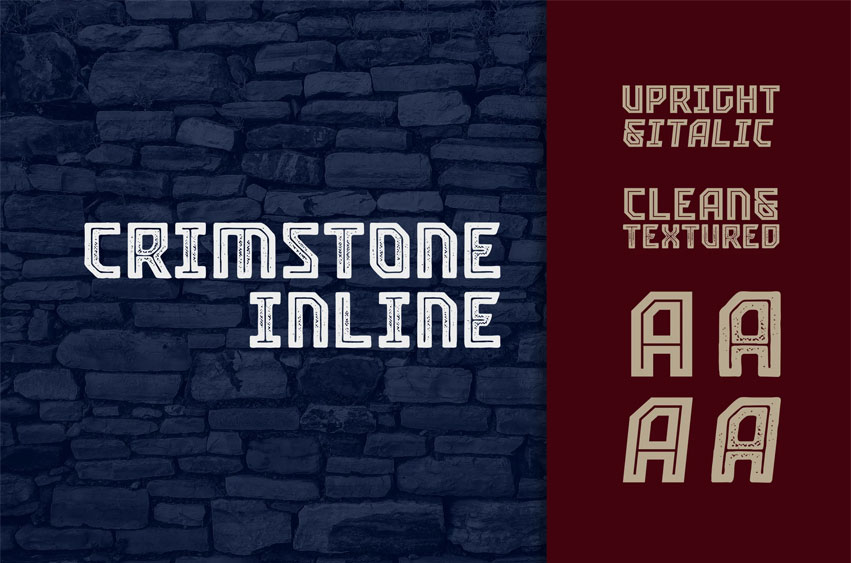
Crimstone Inline Font
Crimstone Inline Font is a bold and strong geometric typeface. Rectangular shape with rigid and sharp edges is the first impression that makes this font look powerful and hit.
Not only the clean version, Crimstone Inline is also available in a printed version with a rough and textured appearance. Each has an upright and slanted version. Available in 4 fonts, it is perfect for poster designs, headlines, movie titles, logotypes, packaging etc.